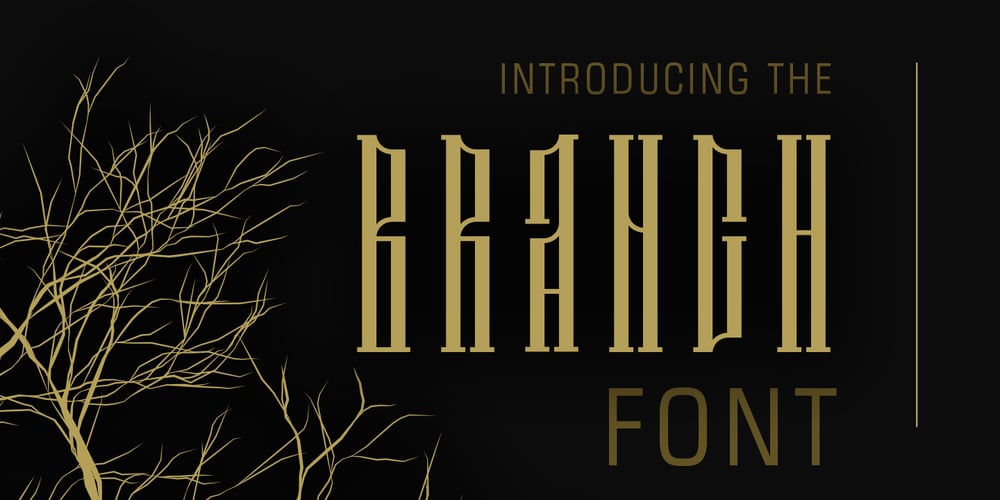
Branch Font Family was designed by Ksenia Kuznetsova and published by Peliken. Branch contains 1 styles and family package options. Branch font with Cyrillic support is perfect for branding, Slavic motives, Russian menu design and many moreFont includes a full set of gorgeous uppercase and lowercase letters, numbers, a large selection of punctuation. You can use this font for design logos, quotes prints on t-shirts and other. Ethnic serif font. Authentic slavic stylized alphabet bold symbols.Creative minimal latin character set.Please NOTE – Mock ups and photo are NOT included.